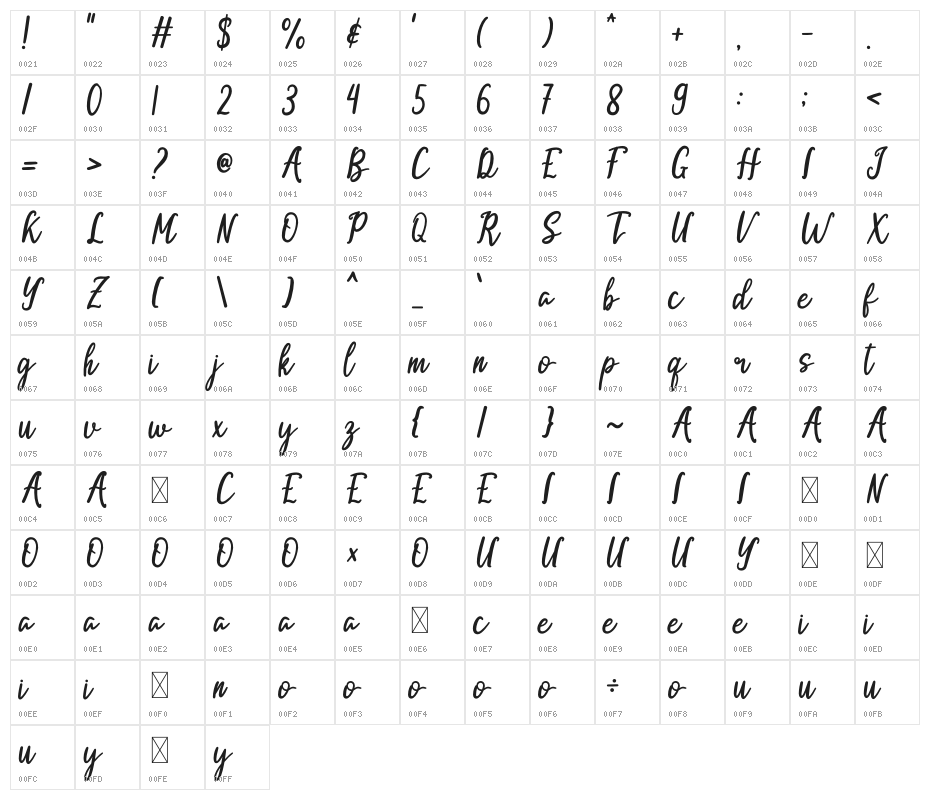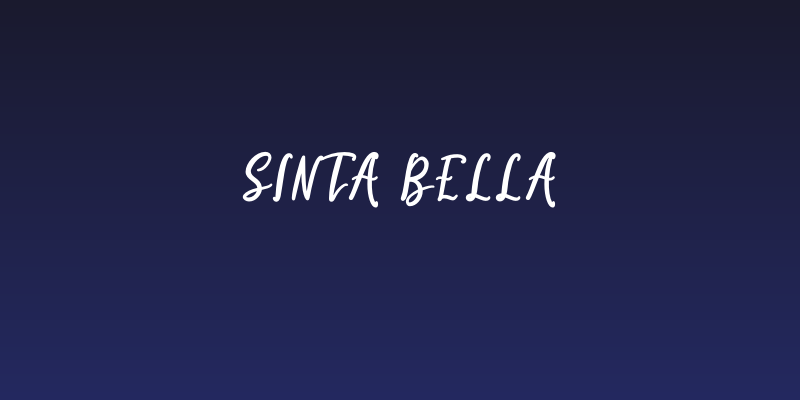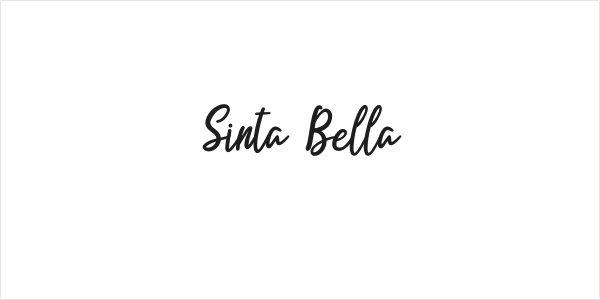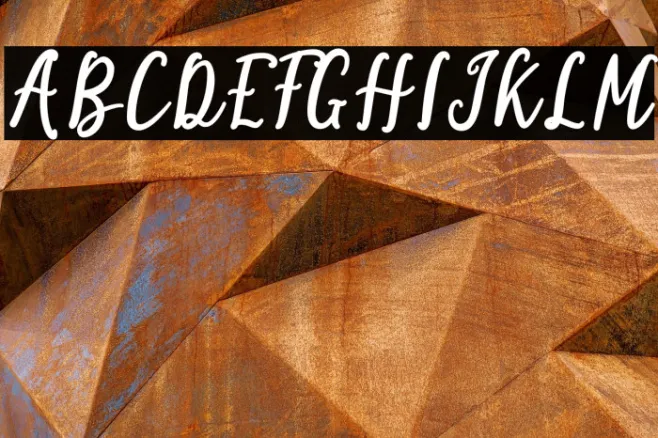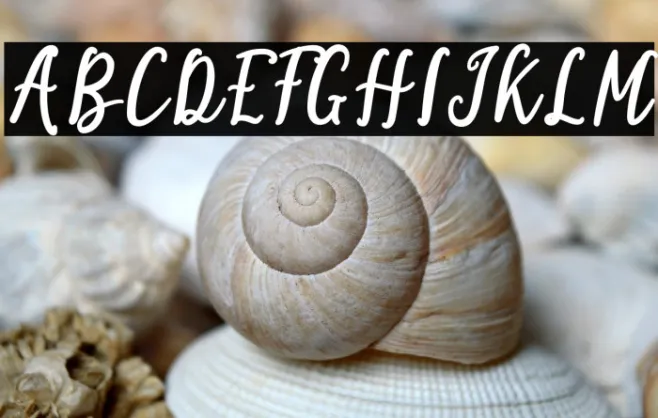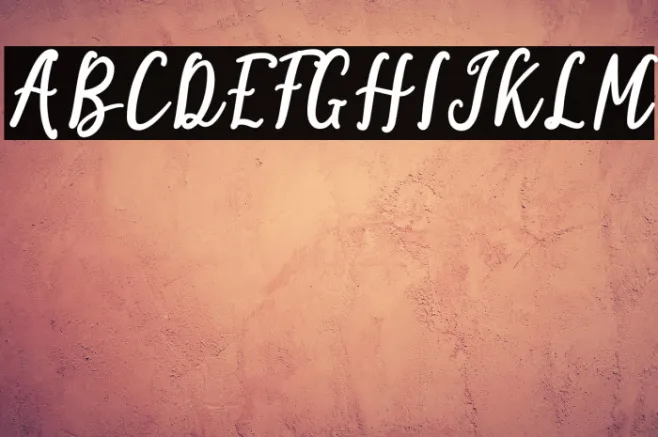
Sinta Bella Font
Sinta Bella Description
A playful and flowing script font with a handwritten style, featuring smooth curves and connected letters.
| Use Case | Logos, Headlines |
| Proposed Projects | Invitations, greeting cards, branding, and social media graphics. |